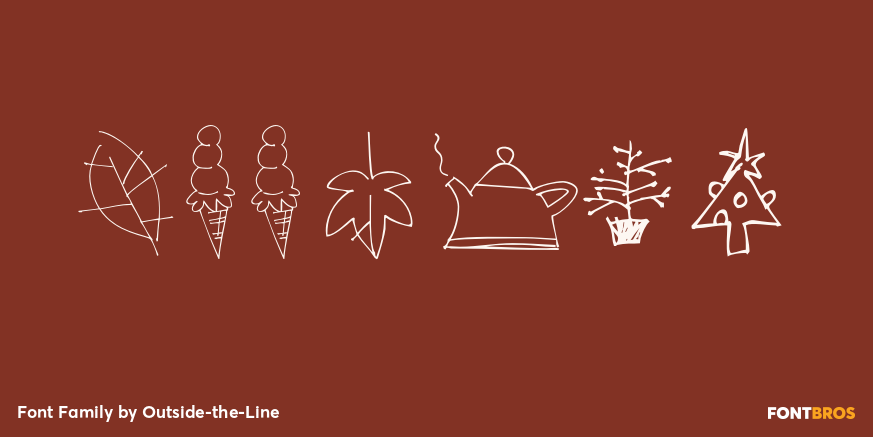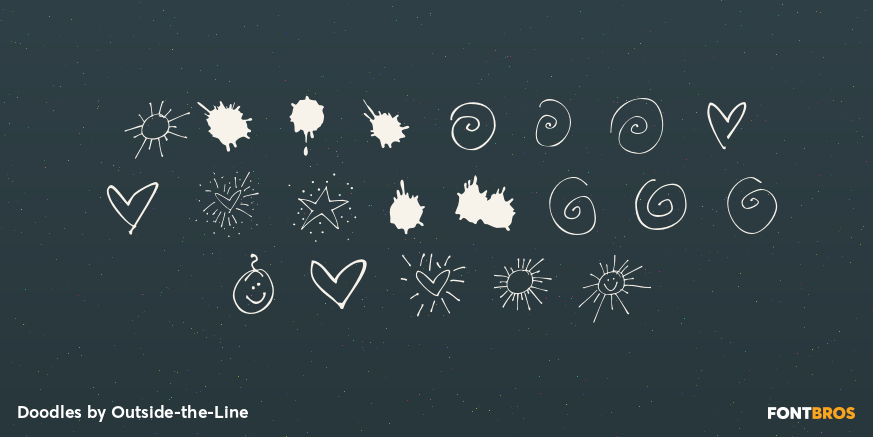
Doodles
Font Family by Outside-the-Line
Doodles is a playful dingbat family of hand-drawn symbols with a casual, sketchy feel. Its assortment of borders, ornaments, hearts, stars, floral touches, and pictogram-style graphics gives the set a whimsical, decorative personality that feels light, friendly, and distinctly handmade.
With 2 included styles—Doodles and Doodles Too—this family is a useful choice when you want to add charming accents to invitations, craft projects, packaging, social graphics, labels, or other display work. The minimal stroke and outline-driven look keeps the artwork easygoing and expressive, making it especially appealing for designs that need a fun, novelty-minded finish.